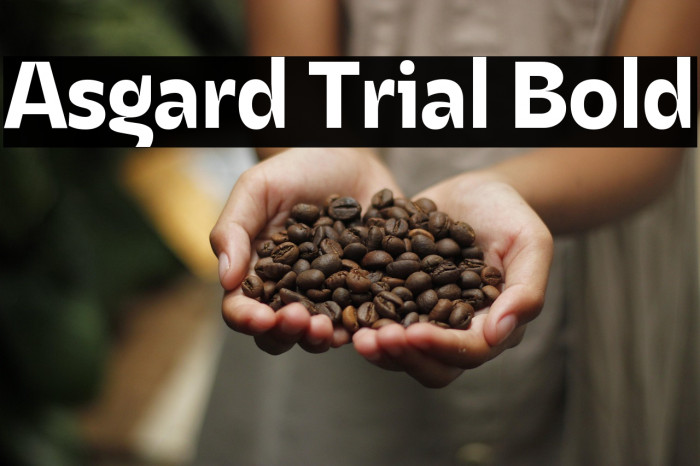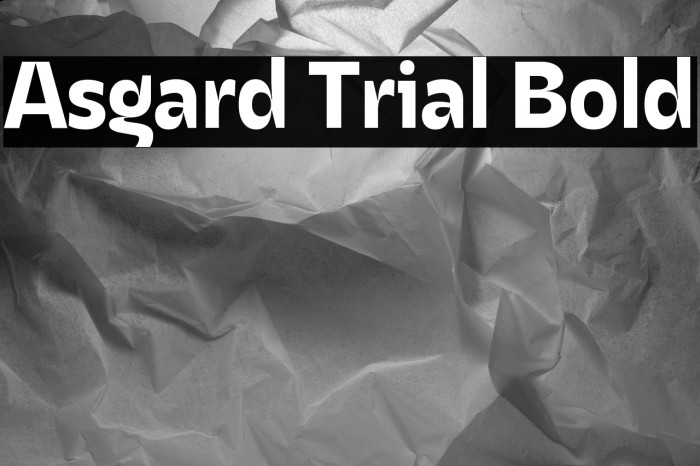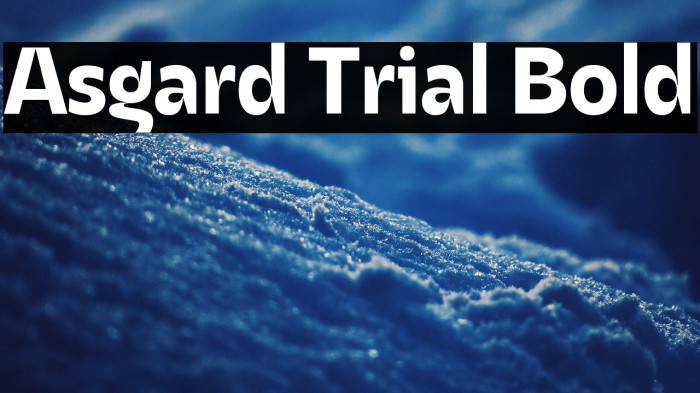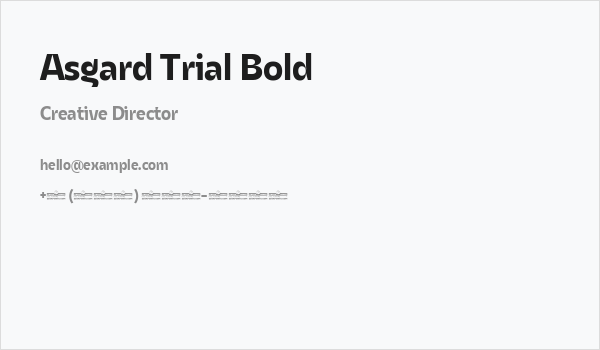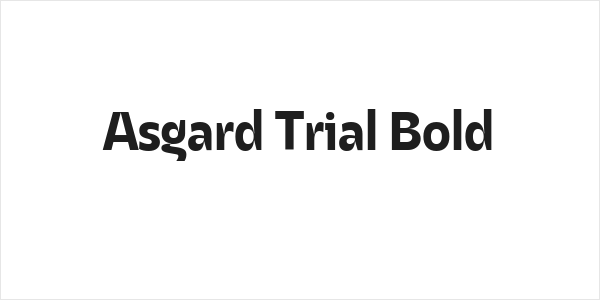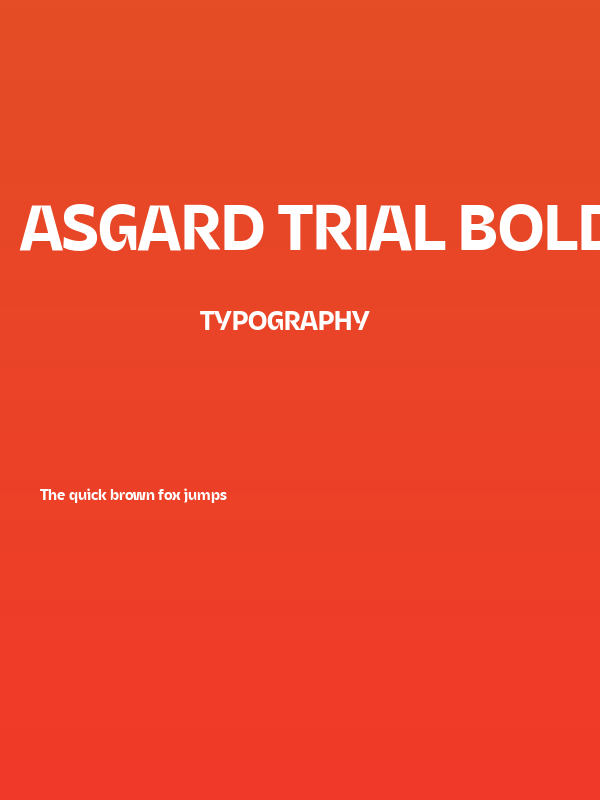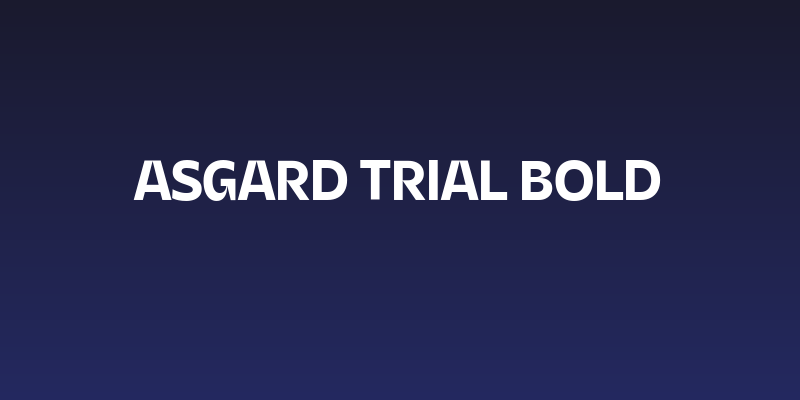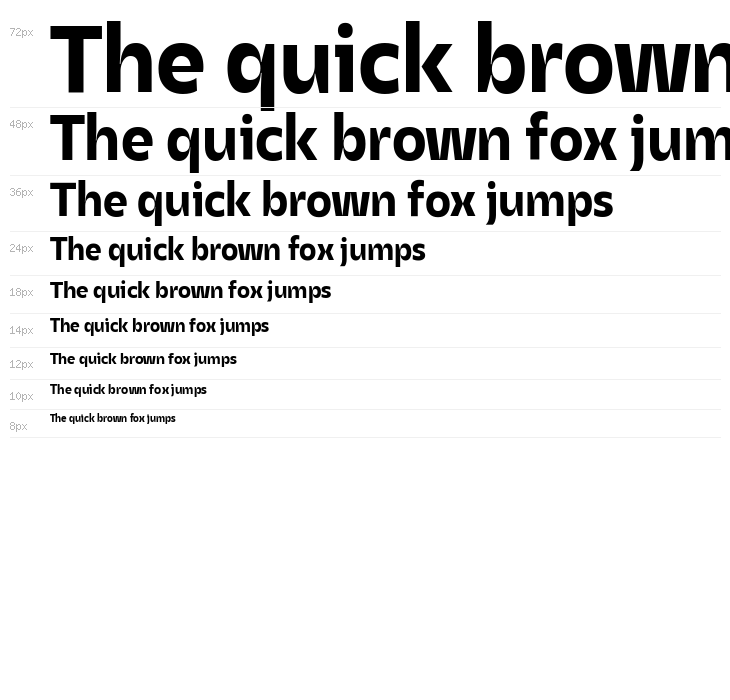
Asgard Trial Bold Font
Asgard Trial Bold Description
This font exhibits a bold and modern design with clean, geometric lines. The uppercase letters are strong and impactful, making them ideal for attention-grabbing headlines. The lowercase letters maintain a consistent style, offering a harmonious blend with the uppercase. The numerals are clear and straightforward, ensuring readability. Special characters are well-defined, adding versatility to the font's use. The overall appearance is sleek and contemporary, suitable for modern design projects.
| Proposed Projects | Ideal for branding, advertising, headlines, and digital media where a modern and bold statement is needed. |